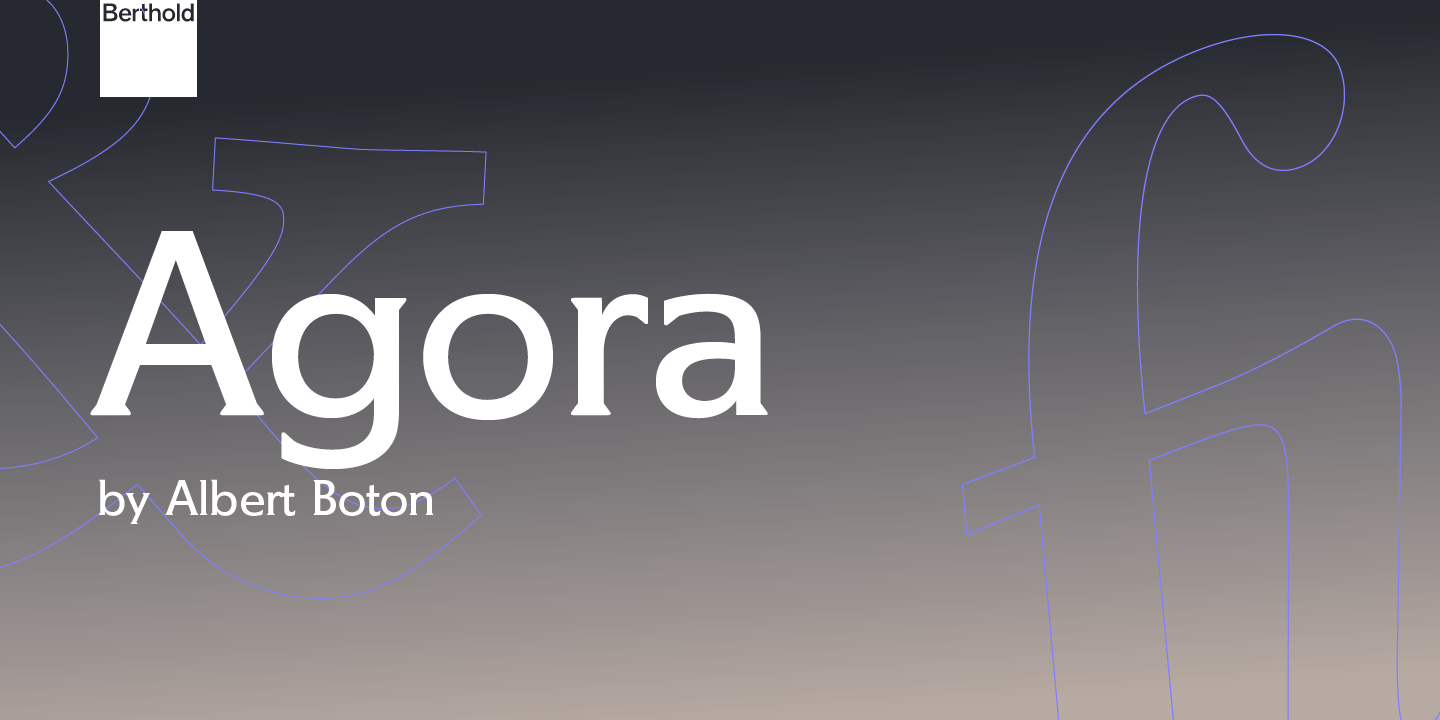
The Agora Font excels in various design applications including public forum branding, civic institution communications, democratic organization materials, community center signage, political campaign design, educational conference promotions, public debate platforms, social gathering invitations, municipal government communications, and collaborative project identities that demand open dialogue and inclusive community engagement.
What makes the Agora Font exciting is its embodiment of democratic principles and open discourse through letterforms that suggest the classical Greek agora where citizens gathered for public discussion and civic engagement. This typeface captures the essence of inclusive communication and collective wisdom through carefully balanced characters that convey accessibility, transparency, and democratic values. The font's community-focused personality makes it perfect for organizations seeking to foster public participation, encourage open dialogue, and build stronger communities through typography that welcomes diverse voices and promotes civic engagement.
The Agora Font family typically includes comprehensive weight variations designed for optimal readability in public communication contexts, featuring accessible design principles and multilingual character sets that support diverse community needs. These family options often include condensed variants for space-efficient signage, extended versions for impactful headlines, and specialized characters that enhance the font's utility for civic communications and public information systems.
Civic leaders and community organizations consistently select Agora Font Free Download for projects requiring typography that promotes democratic participation and inclusive communication. This typeface delivers exceptional performance in public sector communications, community outreach materials, and civic engagement campaigns where establishing trust and encouraging public participation is essential for democratic success. The font's classical heritage makes it particularly effective for educational and governmental applications. Download Agora Font Free Download today to access this distinguished typeface that transforms public communications with its democratic sophistication and inclusive appeal, creating compelling civic experiences that honor the tradition of open discourse while fostering community engagement and democratic participation in contemporary society.